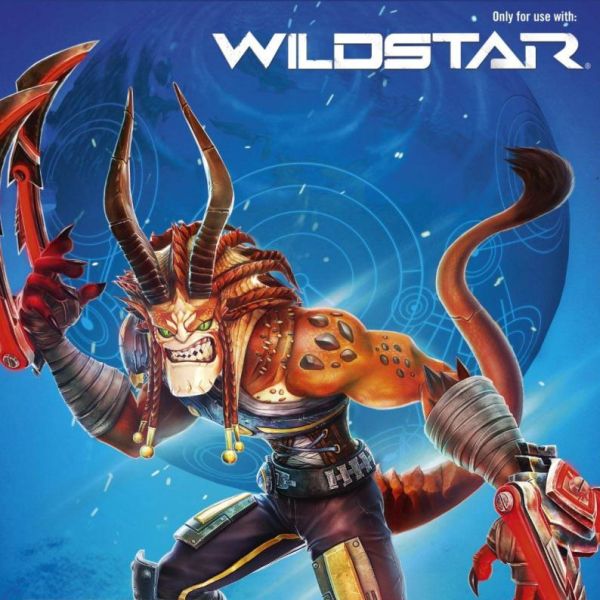
WildStar Font
Fonts in UseWildStar was a science fiction massively multiplayer online role-playing game (MMORPG) developed by Carbine Studios and published by NCSoft. The game was set on the fictional planet of Nexus and followed the conflict between two factions, the Exiles, and the Dominion, as they fought for control of the planet.
The game's logo showcases a sleek sans-serif font that was most likely custom designed. However, there exists a fan-made font called WildStarFont, which allows you to replicate the logo and can be downloaded from the Fonts Used Section at no cost.